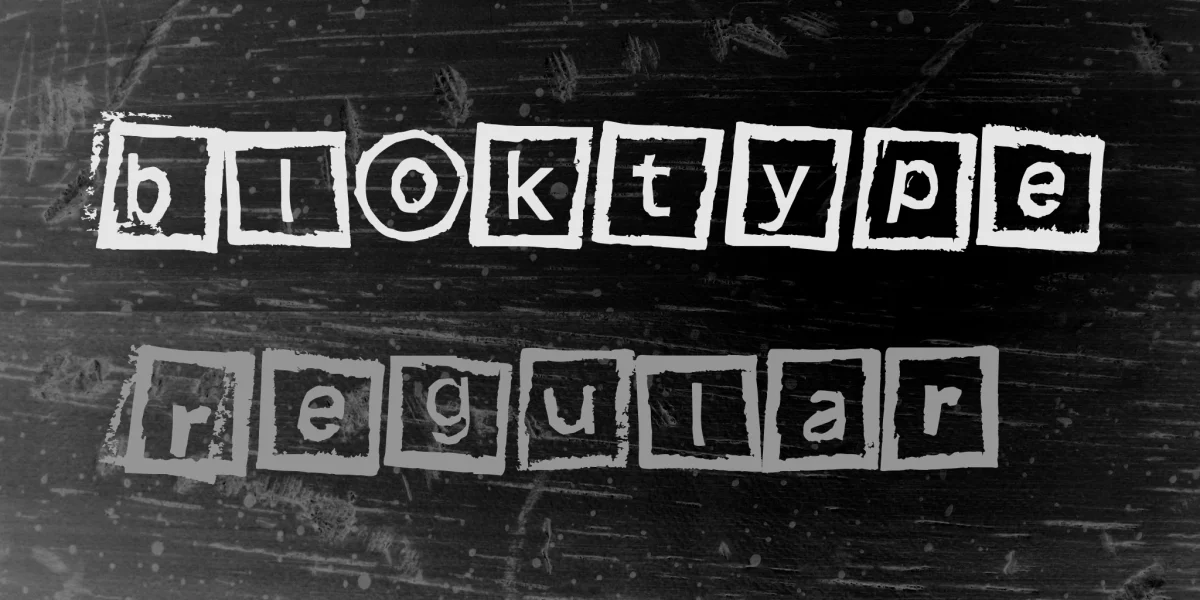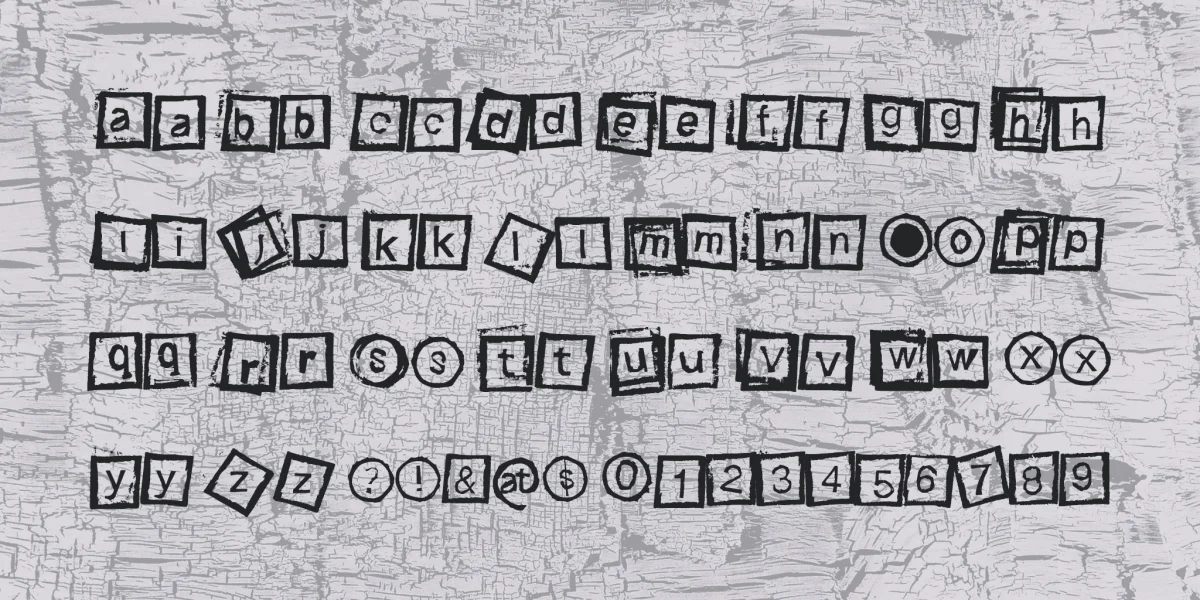
Bloktype can be used best in a large way. It's very rough, yet happy.
I stenciled this font myself! First I cut letters out of pieces of rubbergum and stamped those. Than I scanned and worked them up to what they are now! Under the ` button you'll find my initials MB.